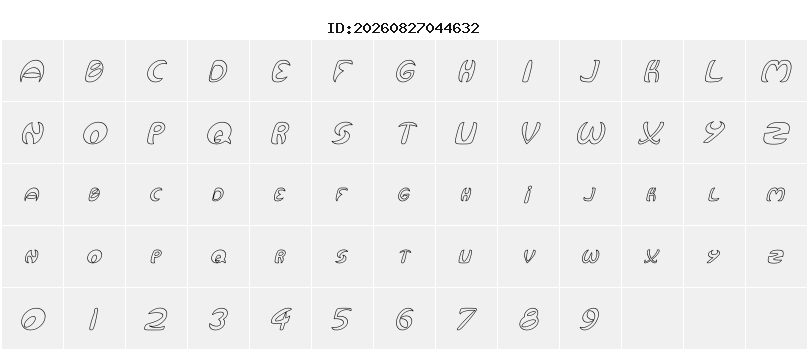
653-CAI978.ttf is a modern, elegant sans-serif font designed for ultimate readability and visual harmony. Perfect for branding, headlines, web design, and print materials.